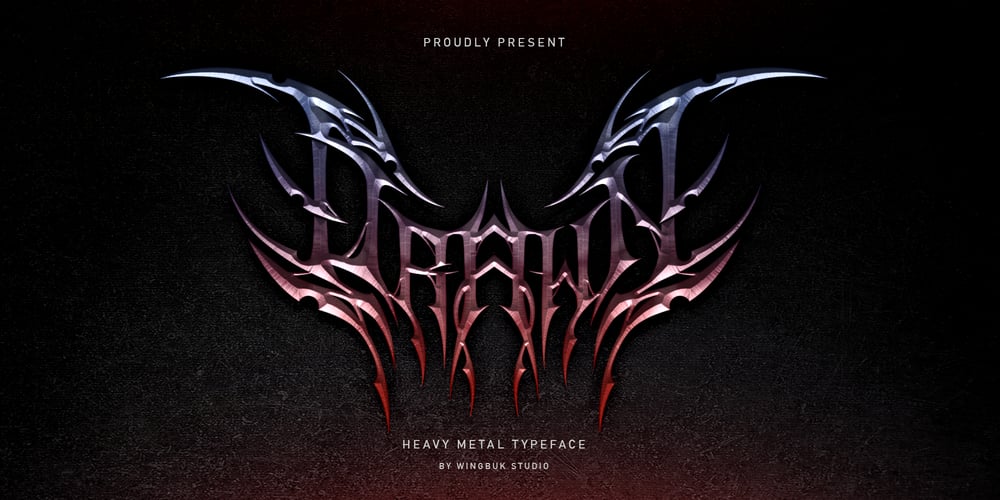
Drawn Metal Font Font Family was designed by Adji Shaka and published by WingBuk Studio. Drawn Metal Font contains 1 styles and family package options. Drawn is a heavy metal font made with a touch of darkness, featuring a heavy metal feel to compliment your design. Drawn is very easy to use in any variation or writing combination, also perfect for metal band logos, merchandise, clothing, apparel, or anything else that calls for a heavy metal feel.Here is video Tutorial how to use it on Adobe Photoshop, Adobe Illustrator, and CorelDRAW https://youtu.be/rGfSWmztRT0Recomended Software to use: Corel Draw Adobe Photoshop Adobe Illustrator